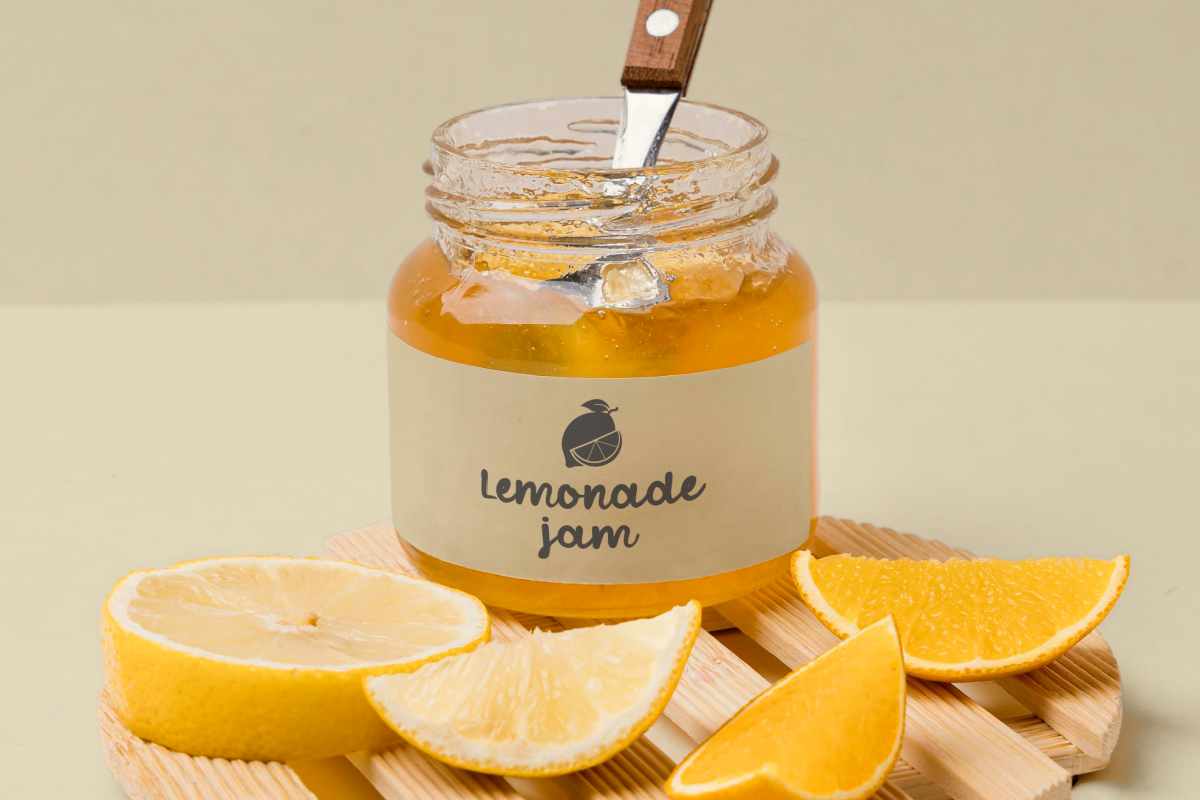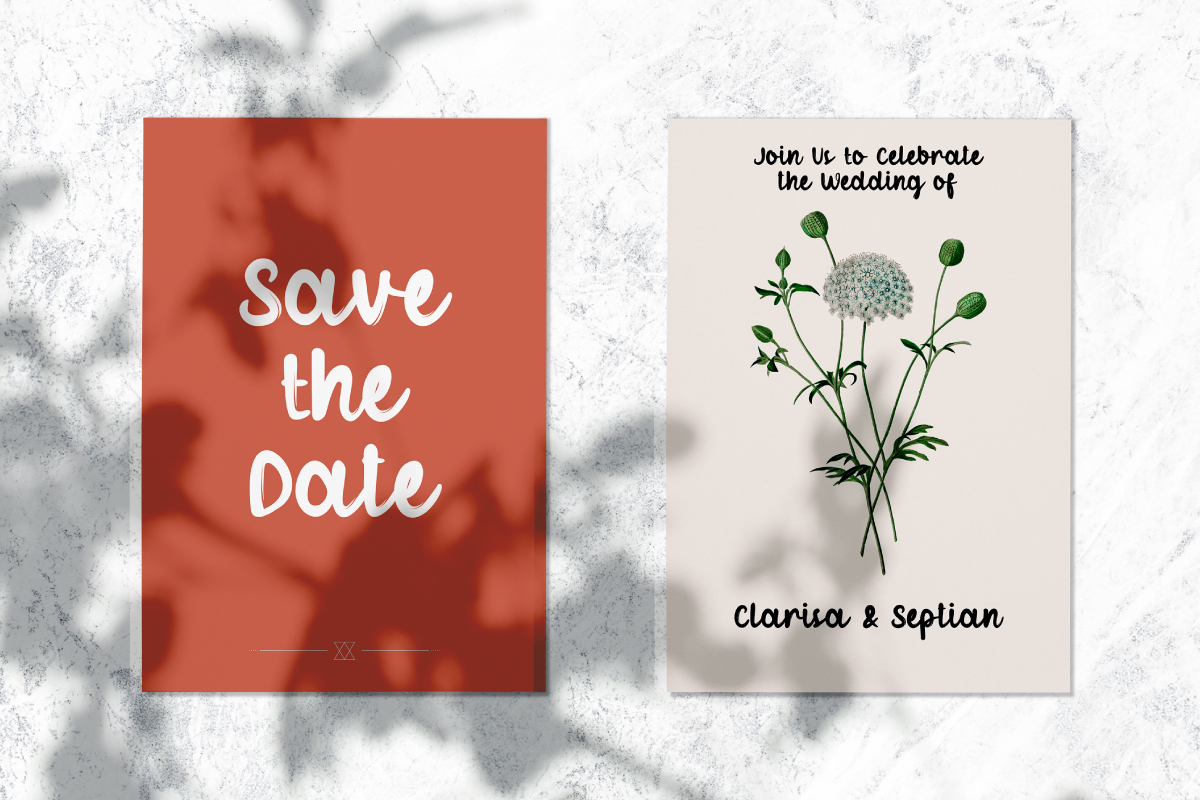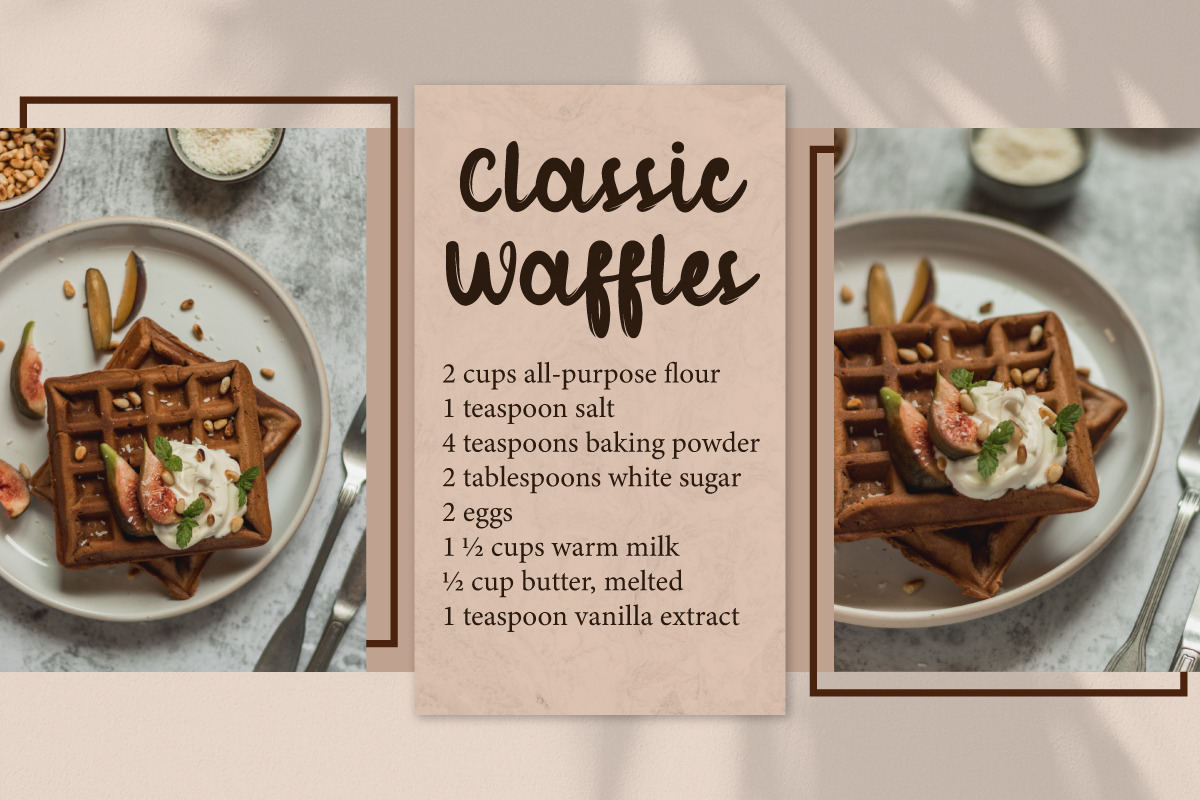
Saccharify Font
Saccharify Script Font is a unique handwriting script font with rough effects on its letters. This font is made of small thick brush strokes that produce impressive lettering characters. Carefully designed to make your designs not boring at all. This font will suitable for many businesses : café, restaurant, florist and many more
Saccharify Font includes full set of Uppercase and Lowercase Basic Characters, Numerals and Punctuation. This beautiful font will suit many industries, such as fashion, beauty product, publishing, printing, restaurant, café, advertising, homeware, and more!